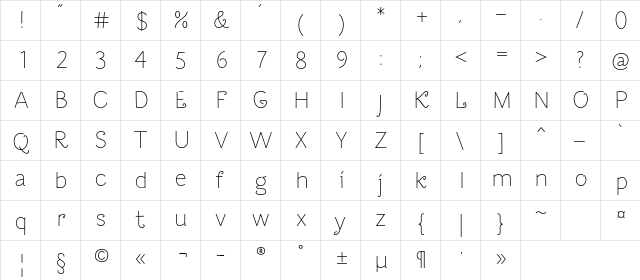
Dacha Regular
| Foundry | Denis A Serikov |
| Designer | Denis A Serikov |
Design Context for Dacha Typeface
Dacha offers clean, dependable letterforms without strong stylistic allegiance, making it a practical choice for designers who need flexibility.